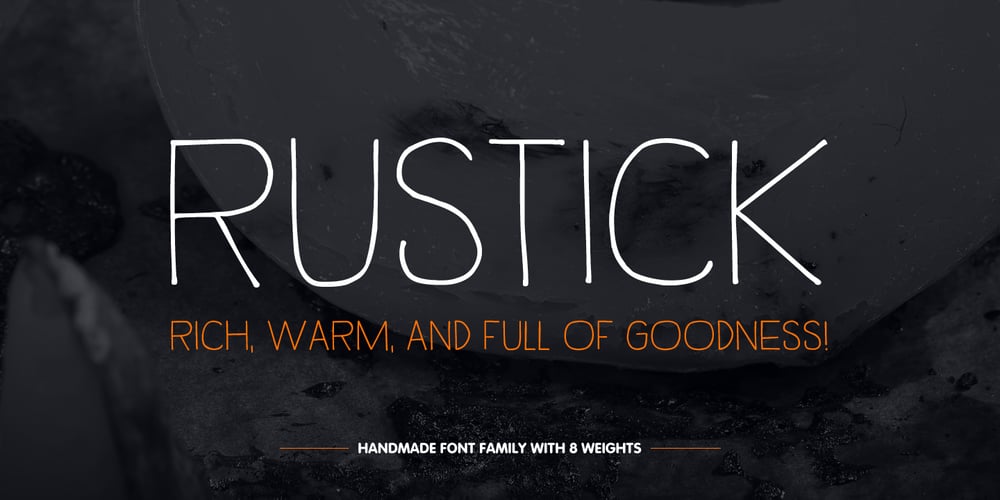
Rustick Font Family was designed by Alex Haigh and published by HyperFluro. Rustick contains 8 styles and family package options. Are you hungry for a font design that will blow you away? Do you want to invoke the rustic smell of wood smoke, the mouth-watering thought of antipasti, olive-oil, open French doors in the summer? Well before you book your ticket to Rome, check out the new font from Thinkdust, Rustick. Four weights (and italics) of indulgent, home cooked comfort, warm, earthen and familial. Before making its point, Rustick gives you a cup of deep, rich coffee and double checks you’re warm enough. Just one look will start your stomach rumbling. Ideal for food packaging and warm, homey branding, Rustick will never let you go home hungry.